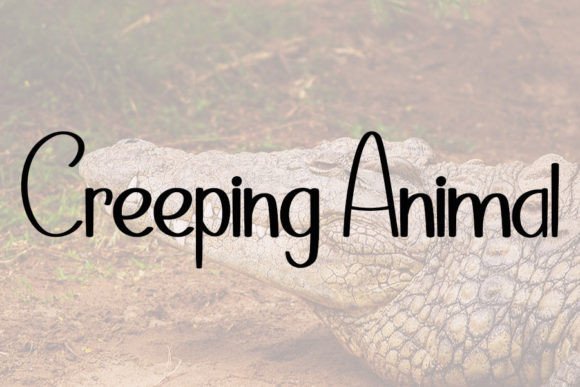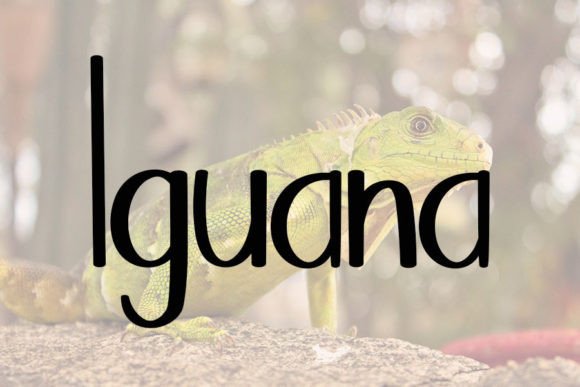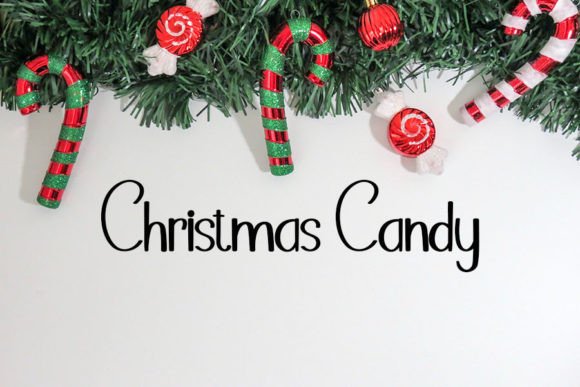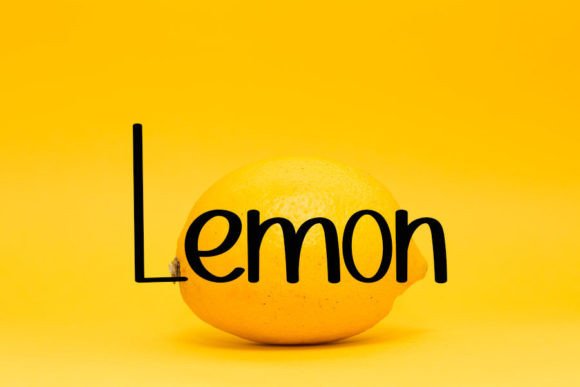
Introducing Alligator Font: The Elegant Handwritten Font for Stunning Designs
Are you on the hunt for a font that adds a touch of elegance and sophistication to your designs? Look no further than the Alligator Font! This beautiful handwritten font is described by its elegant touch, making it perfect for your favorite projects. With its incredibly distinct and timeless style, you’ll fall in love with Alligator Font and use it to create spectacular designs that leave a lasting impression.
What Makes Alligator Font So Special?
Alligator Font is a unique and stylish font that stands out from the crowd. Its elegant touch gives it a sophisticated feel, making it ideal for designs that require a level of refinement and poise. Whether you’re working on a branding project, a wedding invitation, or a packaging design, Alligator Font is the perfect choice. Its versatility and flexibility make it suitable for a wide range of applications, from digital to print.
Key Features of Alligator Font
• Elegant Handwritten Style: Alligator Font boasts a beautiful, elegant handwritten style that adds a touch of sophistication to any design.
• Distinct and Timeless: Its incredibly distinct and timeless style ensures that your designs will stand out and remain relevant for years to come.
• Perfect for Various Projects: From branding and advertising to packaging and wedding invitations, Alligator Font is perfect for a wide range of projects.
• Easy to Read and Understand: Despite its elegant and sophisticated feel, Alligator Font remains easy to read and understand, making it perfect for body text and headlines.
• Use it for Headlines and Body Text: Alligator Font is perfect for both headlines and body text, making it a versatile addition to any design project.
Benefits of Using Alligator Font
In conclusion, Alligator Font is a beautiful and elegant handwritten font that’s perfect for designers and crafters looking to add a touch of sophistication to their designs. With its distinct and timeless style, versatility, and ease of use, Alligator Font is an excellent choice for a wide range of projects. So why wait? Fall in love with Alligator Font and use it to create spectacular designs that leave a lasting impression!